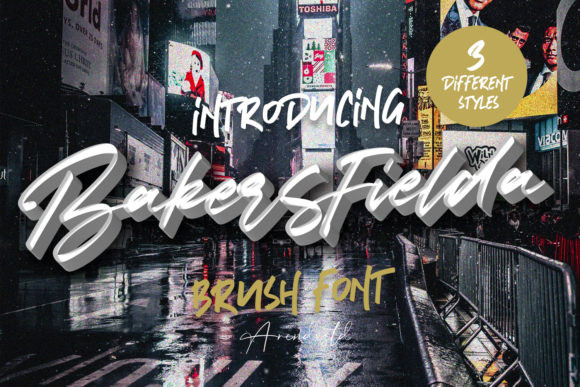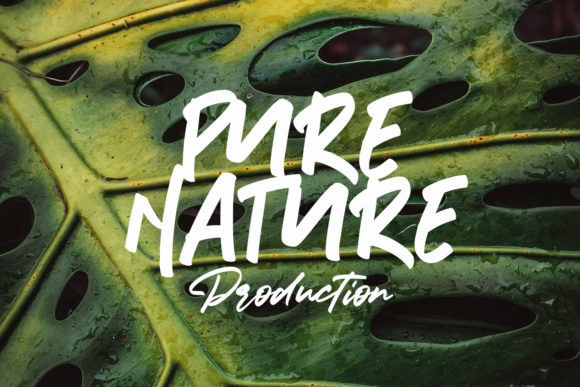
Bakersfield Font
Bakersfield embodies fun, quirkiness and authenticity. This enchanting display font will turn any creative idea into a true standout.